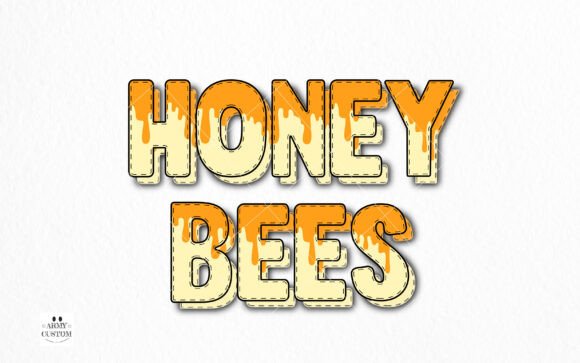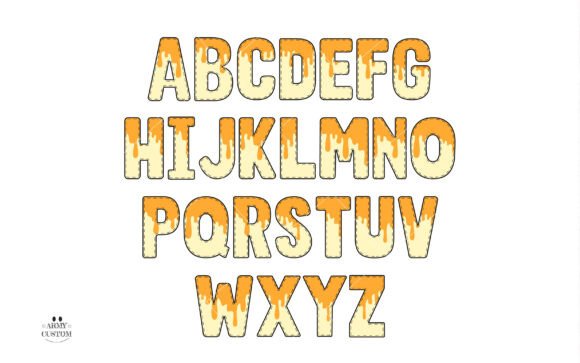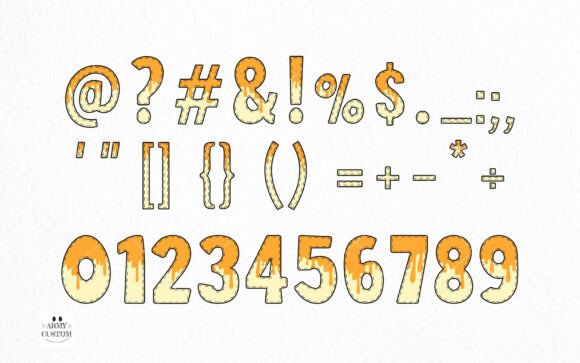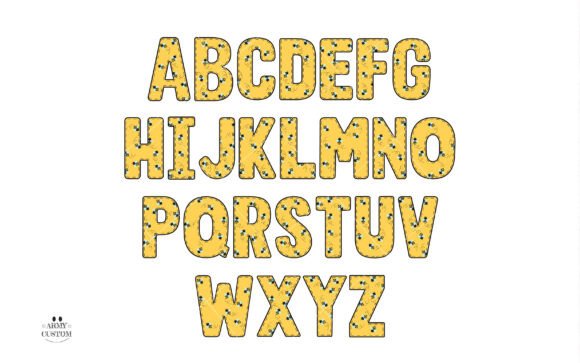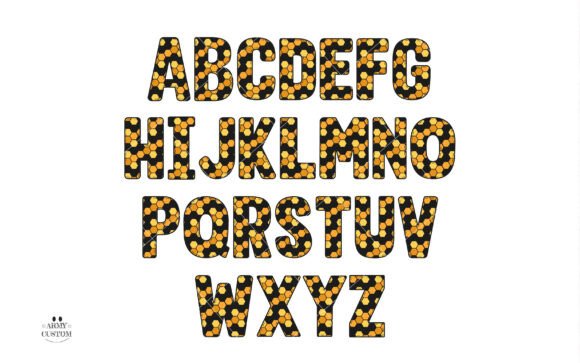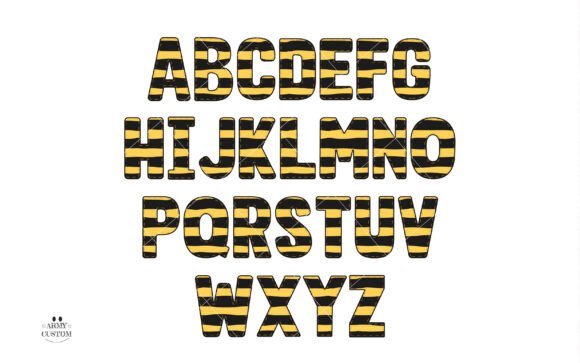
Introduction to Bee Bundle Font
Have you ever been working on a creative project, pouring your heart and soul into every detail, only to feel like something is missing? That’s when the magic of the right design resource can make all the difference. For designers looking to add a touch of whimsy and elegance to their work, the Bee Bundle Font is a game-changer. This enchanting font is designed to evoke the spirit of the day dedicated to these busy pollinators, and its unique vibe is sure to captivate your audience.
Whether you’re crafting a letter of love, a fond note of remembrance, or simply a beautiful design, the Bee Bundle Font adds a depth and richness that’s hard to find with other fonts. With its high-quality design and transparent background, this font is perfect for any creative project that needs a little extra oomph. And the best part? It’s available for free download, making it a valuable addition to any designer’s toolkit.
- High-quality design resource with a unique, creative style suitable for various projects.
- Designed to be highly legible at various resolutions and sizes, from small text to large headlines.
- Includes a wide range of characters, including uppercase and lowercase letters, numbers, and special characters, making it a versatile design resource.
- Perfect for creative projects, such as logos, branding materials, and digital graphics, where a unique and eye-catching font is essential.
Honest Review: Bee Bundle Font
As a designer, I’m always on the lookout for unique and high-quality design resources. The Bee Bundle Font has caught my attention with its playful and modern vibe. I was excited to dive in and see what it has to offer.
- What works well: ✨ The Bee Bundle Font is a great addition to any creative project that requires a friendly and approachable tone. The font is highly legible and comes with a range of styles and weights, making it perfect for titles, headings, and body text.
- What works well: ✨ The font also includes a transparent background option, which is super handy for designing against any background.
However, I did encounter a few limitations: ⚠️ The font doesn’t come with a comprehensive user manual, which can make it a bit tricky to navigate, especially for beginners.
Overall, I think the Bee Bundle Font is a solid choice for designers looking for a high-quality, free download. While it may not be perfect, its strengths far outweigh its weaknesses. With a little patience and practice, you can unlock its full potential and create some amazing designs.
The Bee Bundle Font is perfect for a variety of creative projects, including logos, brochures, business cards, and social media graphics. Its high-quality design and transparent background make it ideal for any project that requires a professional-looking design resource.